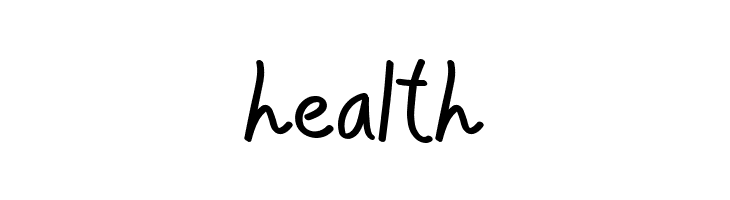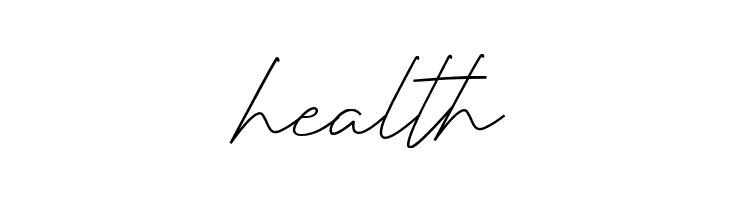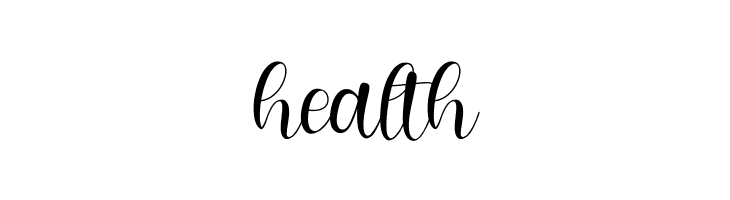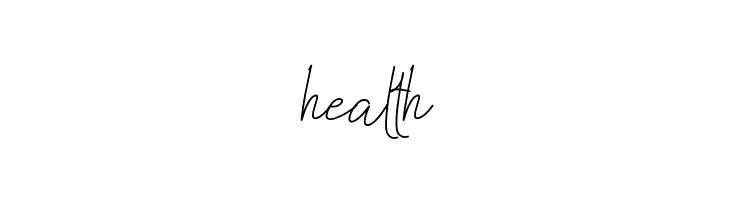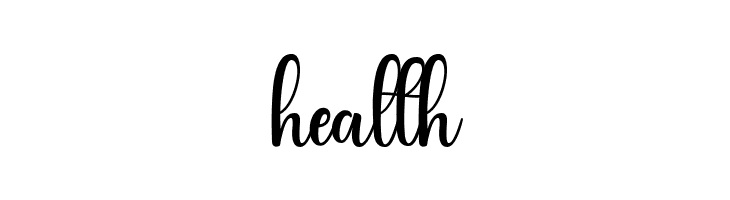
A casual, handwritten font with smooth, fluid strokes.
A graceful and fluid script font with elegant, flowing lines.
A whimsical and decorative font with ornate, curvy characters.
A lively, handwritten font with fluid strokes and a dynamic style.
A flowing, calligraphic script font with elegant, interconnected letters.
An elegant, flowing script font with interconnected letters and a sophisticated style.
An elegant, flowing script font with sophisticated loops and swashes.
A modern, handwritten font with elegant, flowing lines and a personal touch.
A bold, flowing script font with elegant curves and smooth strokes.
A playful and elegant script font with a handwritten style.